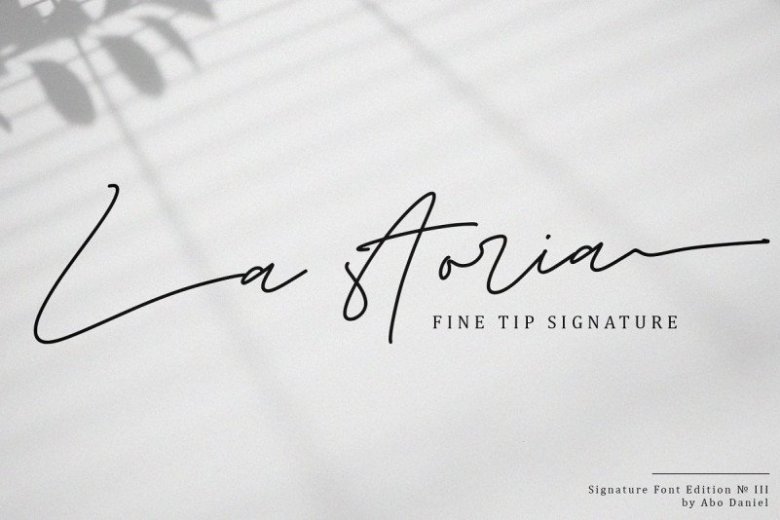
La storia Signature Font
Introducing La storia Font. A new simple and classy handwritten font, this font looks elegant, classy, readable, stylish, catchy and easy to use. It is design and shared by Abo Daniel Studio. It’s Beautiful monoline signature, look so classy and naturally. It’s perfect for branding, photography, invitations, quotes, watermarks, advertisements, product designs, labels, and more that need natural sign feel. Include number-punctuations and multilingual support.